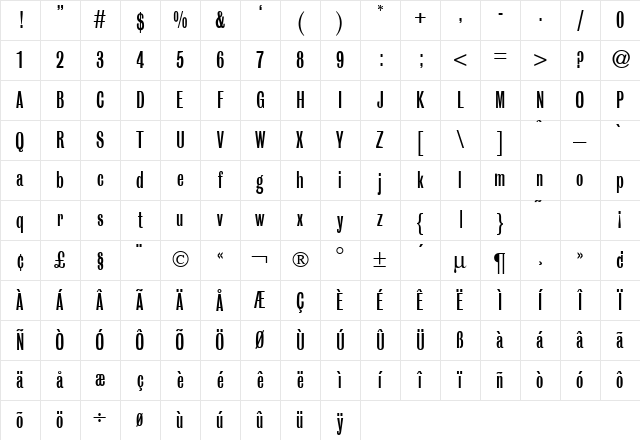
GrobianConDB Normal Free Font
GrobianConDB Normal
Design Context for GrobianConDB
GrobianConDB is a composed and adaptable typeface that performs quietly and consistently across a wide range of design contexts. Its narrow stance lets it pack a punch even in space-constrained designs.